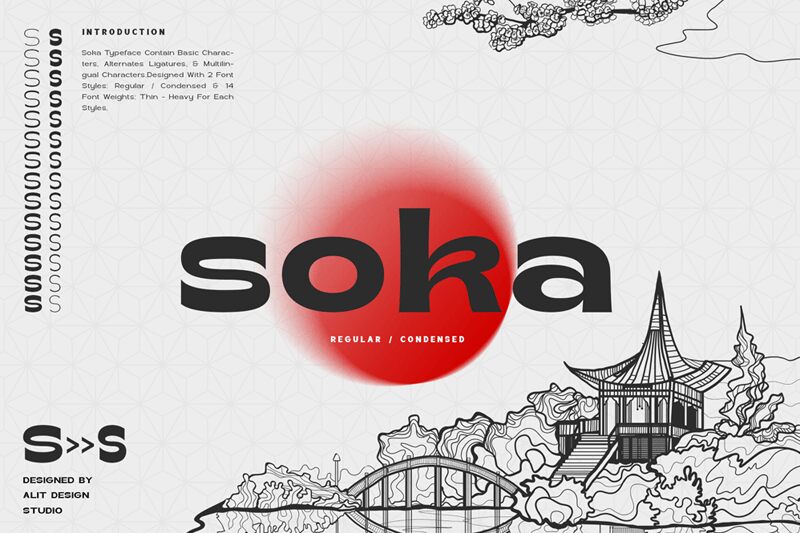
Soka is a stunning sans serif font by Alit Design. Its expanded width adds a touch of modernity to any project, making it perfect for bold designs that demand attention. The clean lines and simple elegance of Soka make it suitable for a wide range of projects, including branding, packaging, and advertising. Use this semi-bold font to convey strength and confidence in your messaging or to add a contemporary twist to traditional design elements. Whether you're creating posters, menus, or web graphics, Soka's versatility will ensure that your message comes across loud and clear.